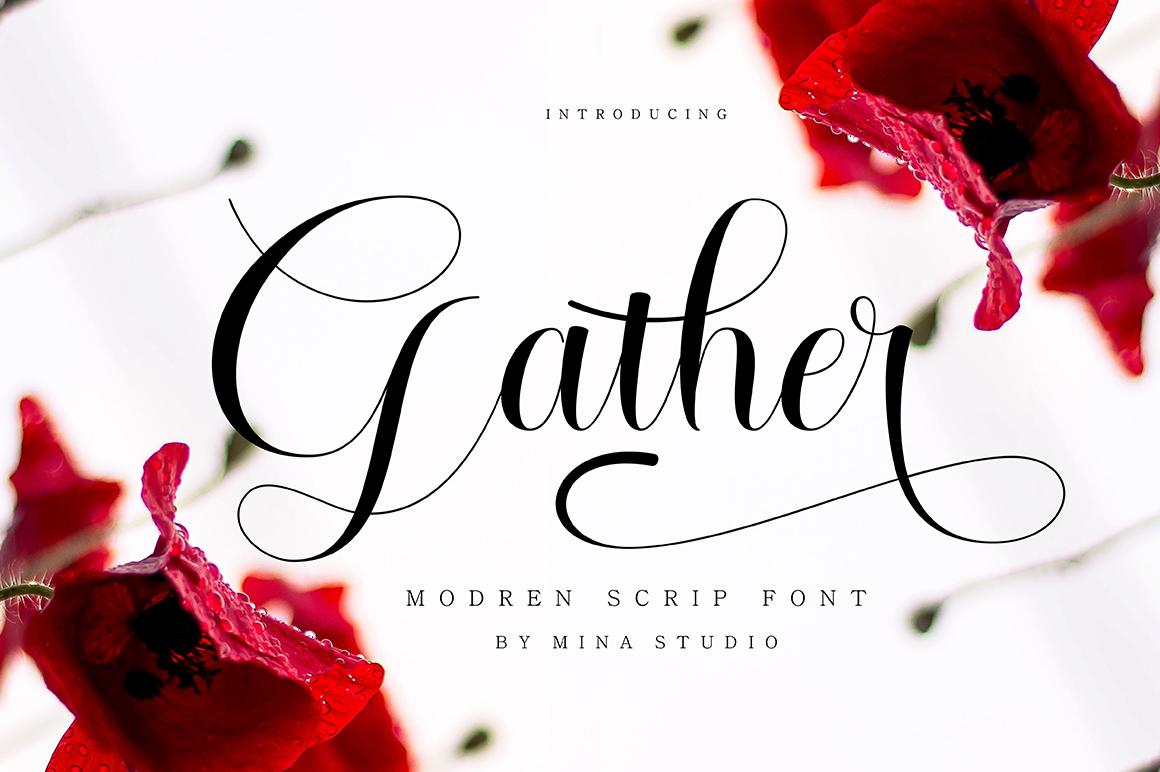
Gather Font Description
Gather is an elegant and flowing handwritten font. It is PUA encoded which means you can access all of the glyphs and swashes with ease! It features a varying baseline, smooth lines, gorgeous glyphs and stunning alternates. It maintains its classy calligraphic influences while feeling contemporary and fresh. Fall in love with this font and bring your projects to the highest levels!